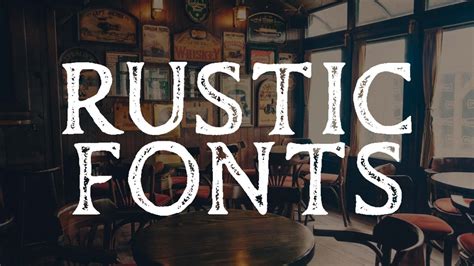
The Most Popular Rustic Google Fonts Of 2023
Whether you’re looking for a font that’s rustic and down-to-earth or modern and chic, Google Fonts has you covered. Google Fonts is a library of over 800 different typefaces, all available for free. In the past few years, many rustic-style fonts have become increasingly popular.
1. Great Vibes
Great Vibes is a beautiful script font with an old-fashioned feel. It has a mix of thick and thin strokes and an elegant, calligraphic look. This font has a classic, vintage vibe that’s perfect for giving a design an old-fashioned charm. Great Vibes is a great choice for logos, invitations, websites, and more.
2. Lobster
Lobster is a bold, script font with a handwritten, brush-style look. This font is perfect for giving a design a fun, casual feel. Lobster is ideal for logos, posters, and other designs that need a bit of whimsy.
3. Playlist
Playlist is a beautiful, modern script font with a rustic, hand-lettered feel. This font has a mix of thick and thin strokes and a casual, yet classy look. Playlist is perfect for giving a design an effortless, yet sophisticated vibe. It’s great for logos, invitations, websites, and more.
4. Satisfy
Satisfy is a brush-style, script font with a casual, rustic feel. This font has a mix of thick and thin strokes and an imperfect, hand-lettered look. Satisfy is perfect for giving a design a vintage feel. It’s great for logos, posters, and other designs that need a bit of whimsy.
5. Pacifico
Pacifico is a bold, script font with a relaxed, hand-lettered feel. This font has a mix of thick and thin strokes and an imperfect, brush-style look. Pacifico is perfect for giving a design a tropical, beach-style feel. It’s great for logos, posters, websites, and more.
When it comes to rustic style fonts, Google Fonts has a huge selection to choose from. Whether you’re looking for a font that’s modern and chic or old-fashioned and down-to-earth, you’re sure to find something that fits your needs. So why not give some of these rustic fonts a try? You might just find the perfect one for your next project.